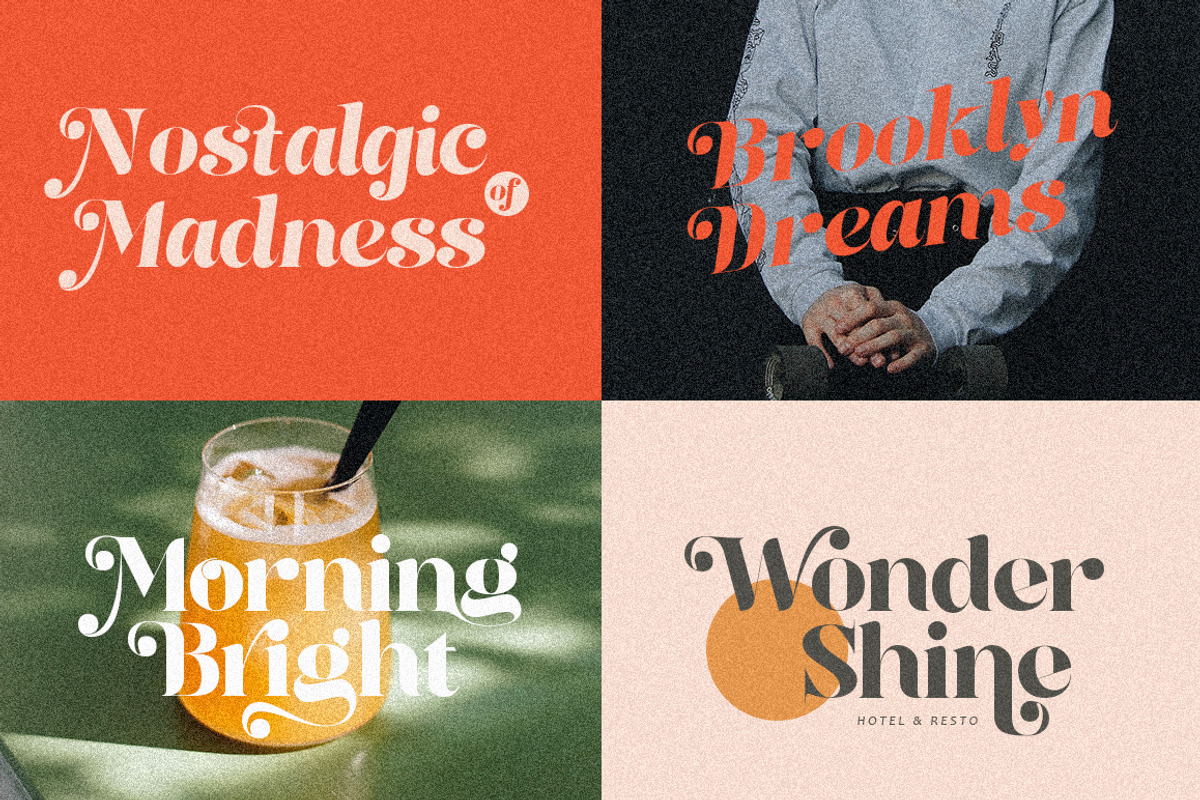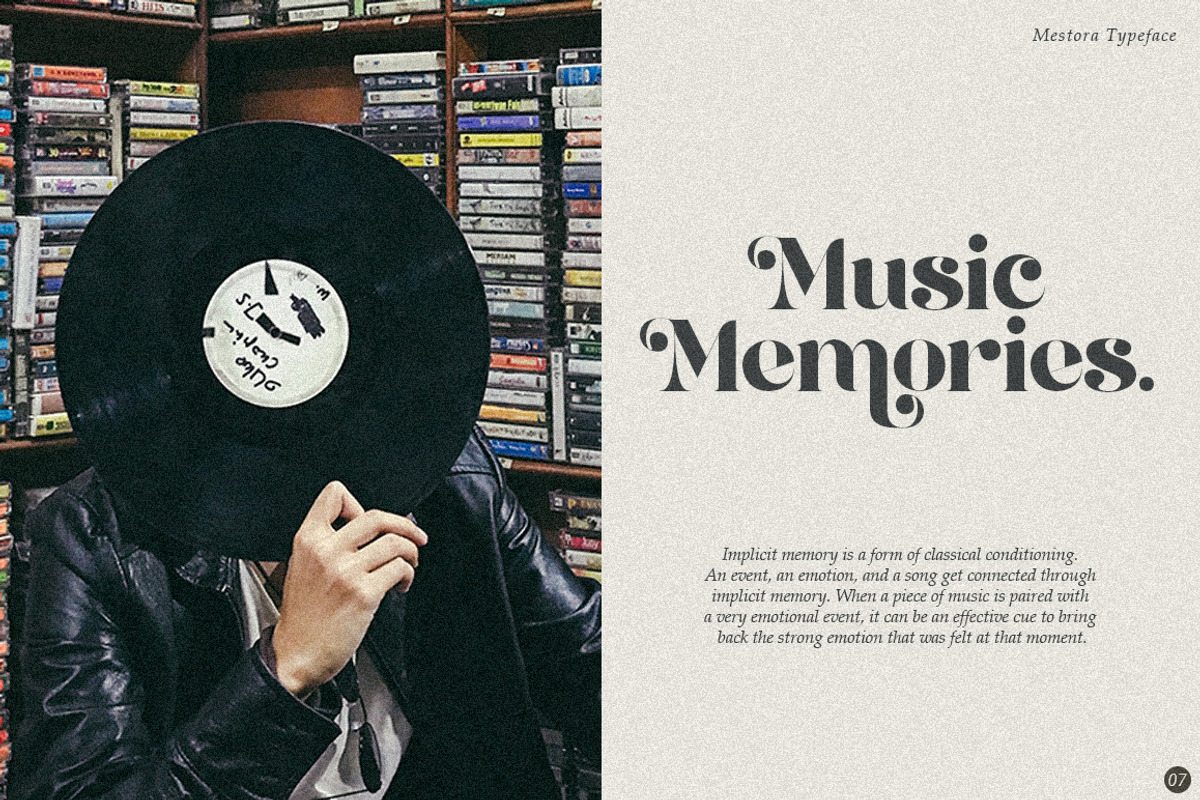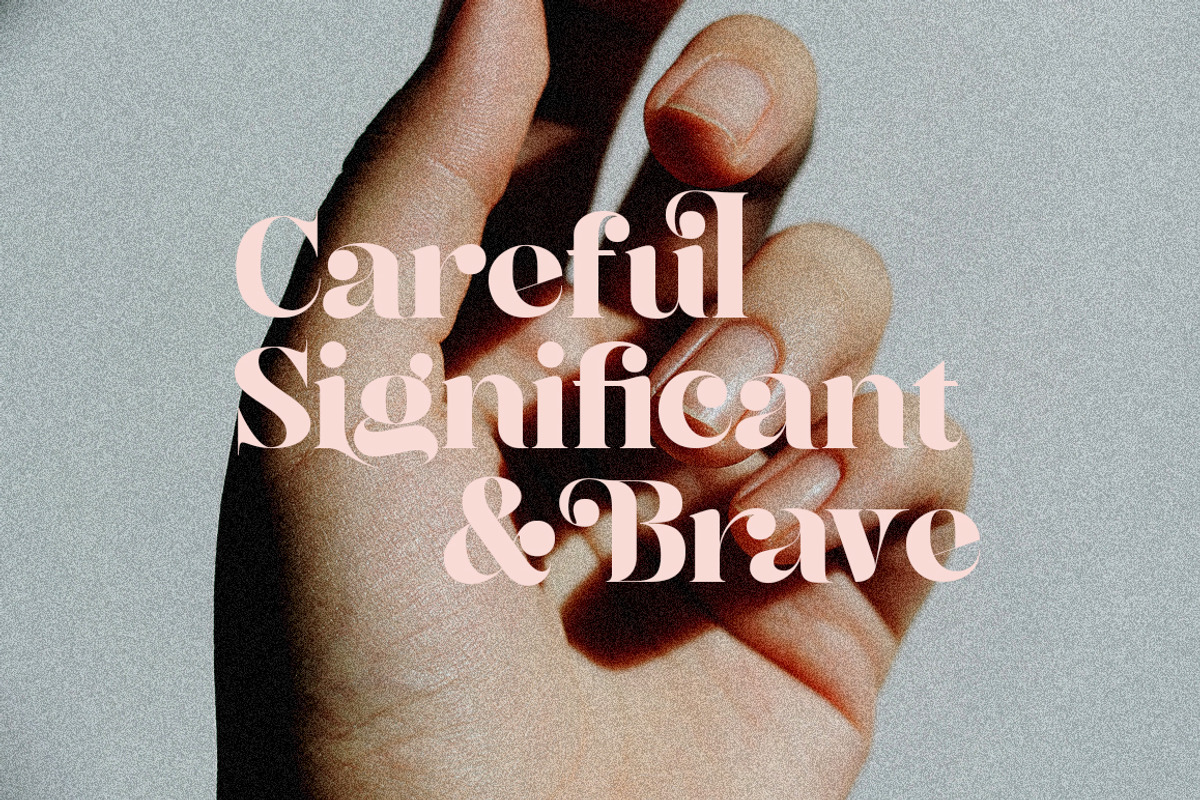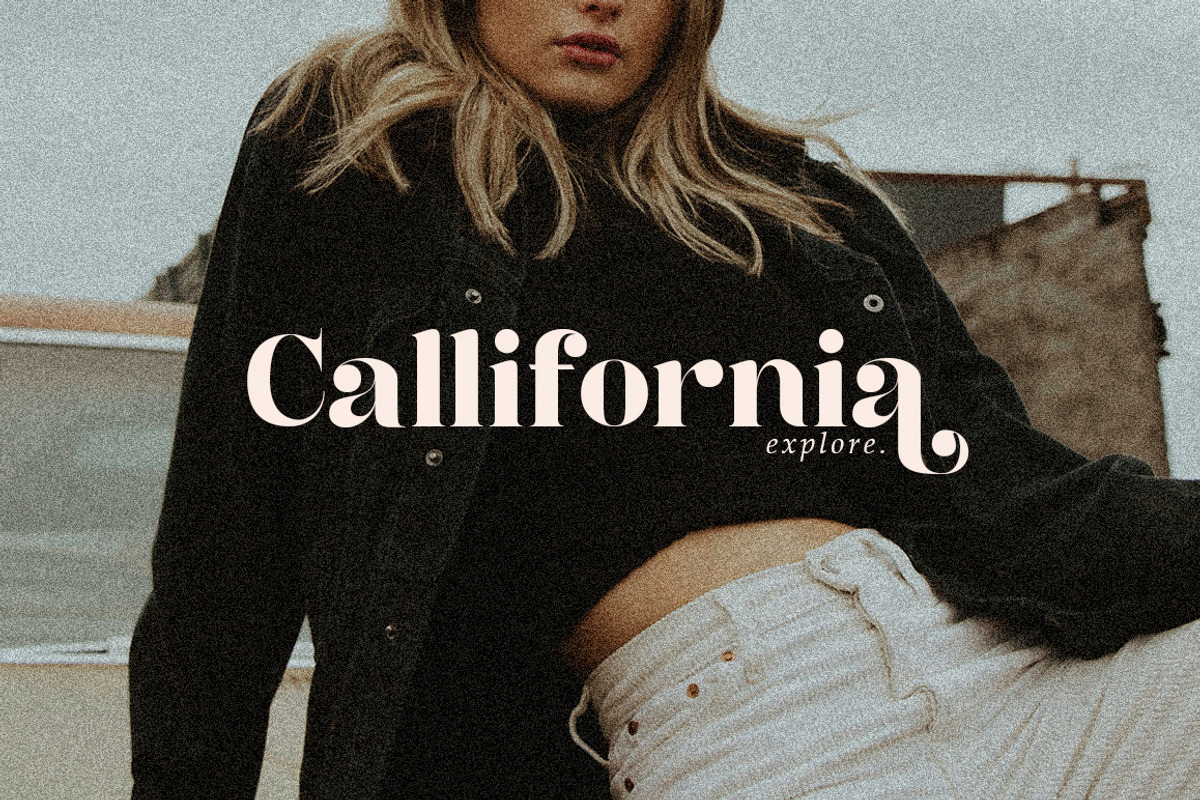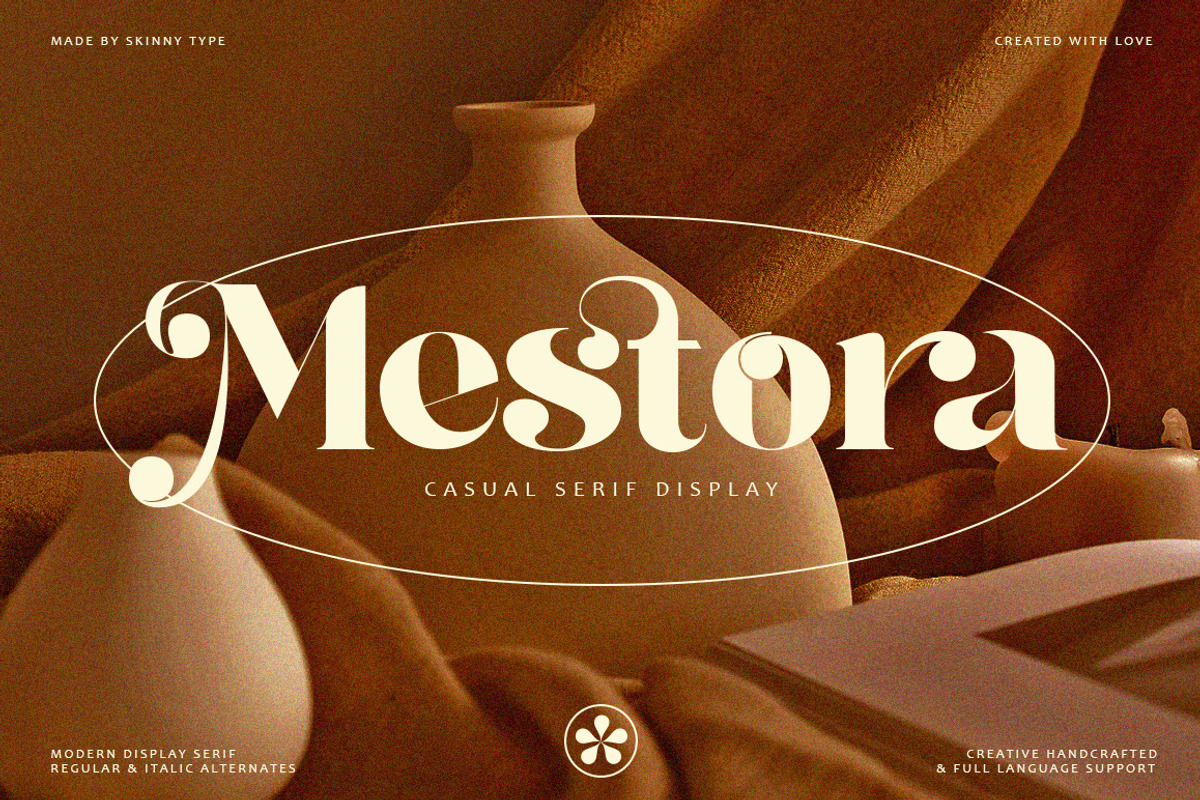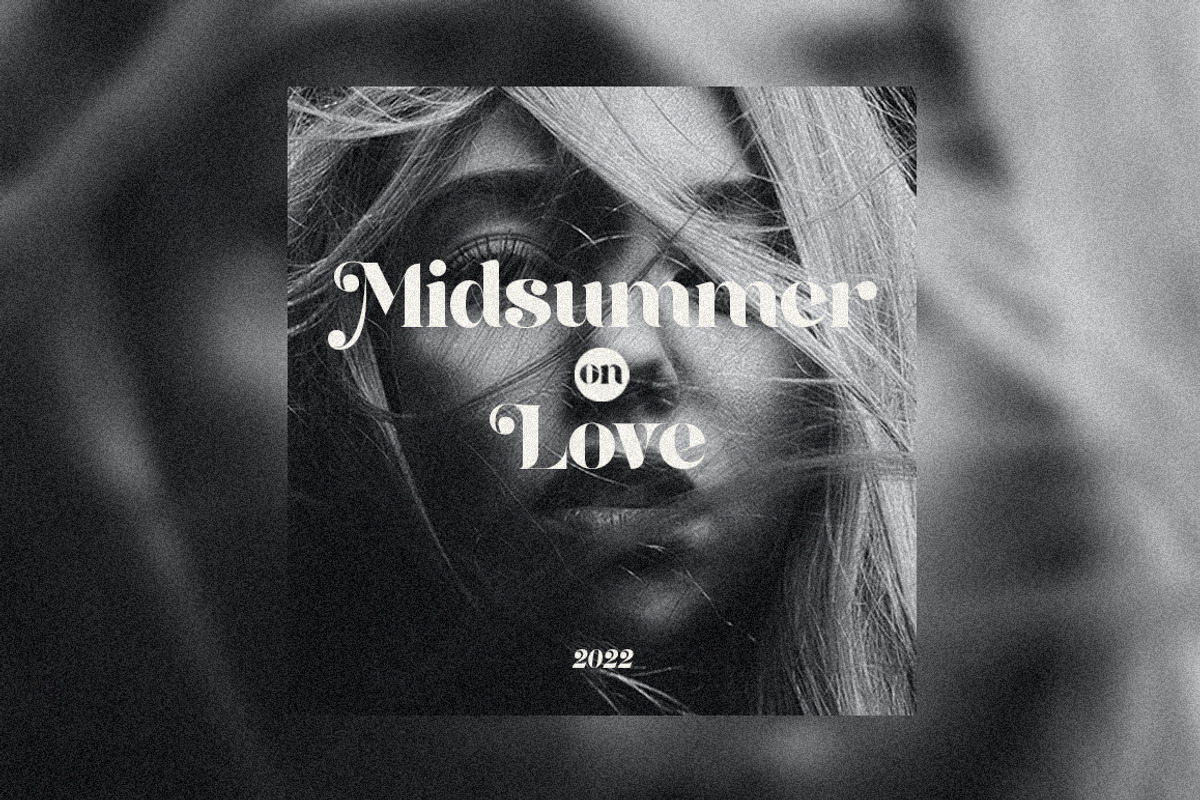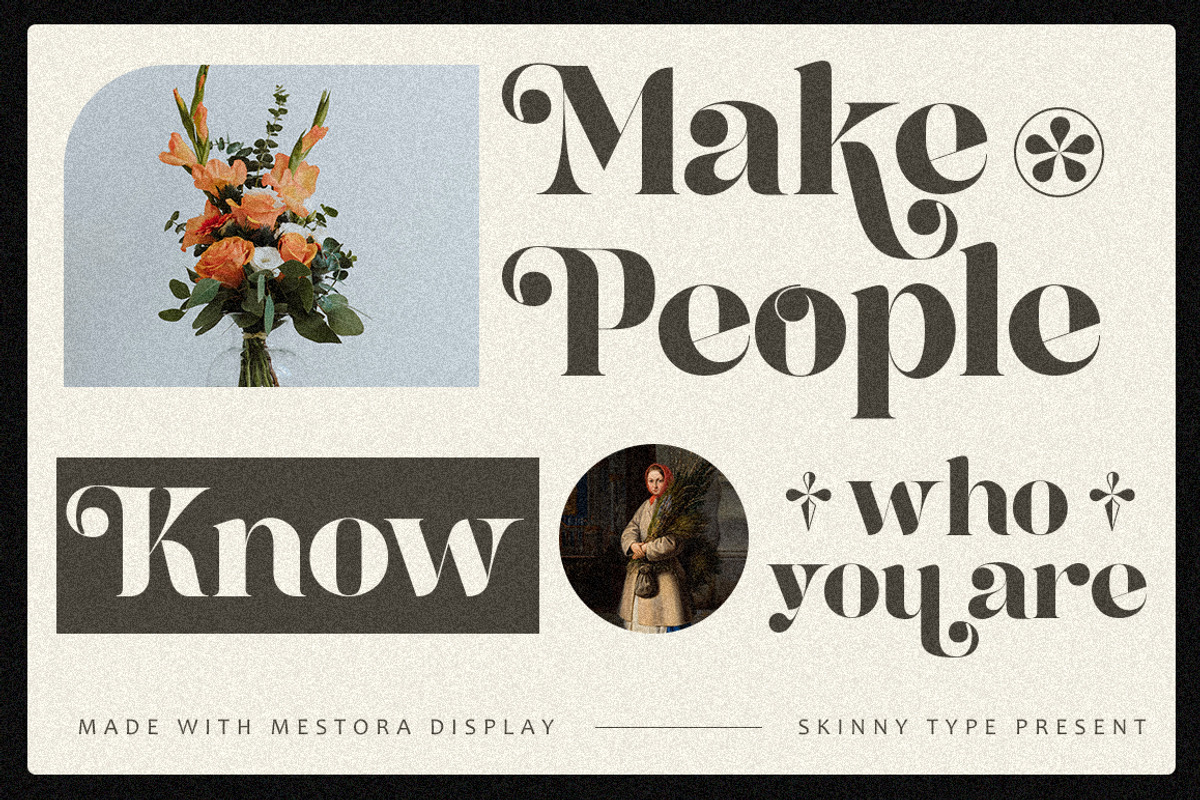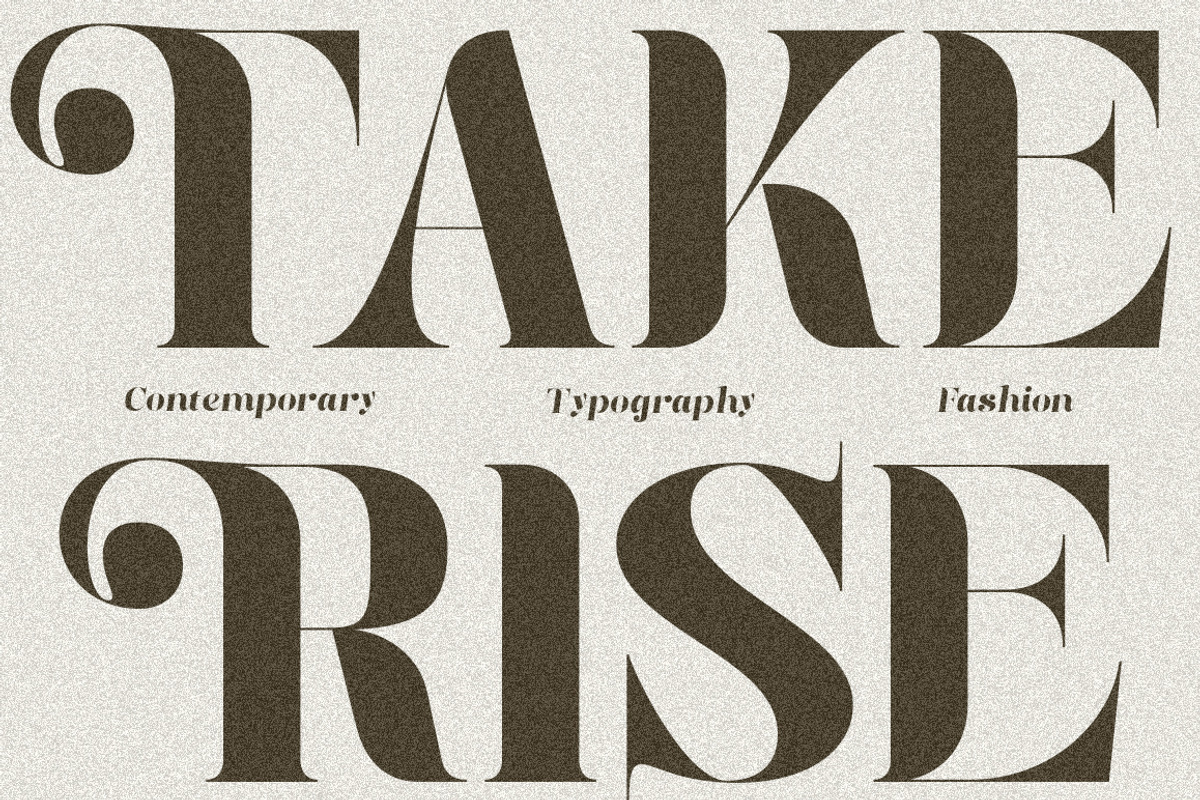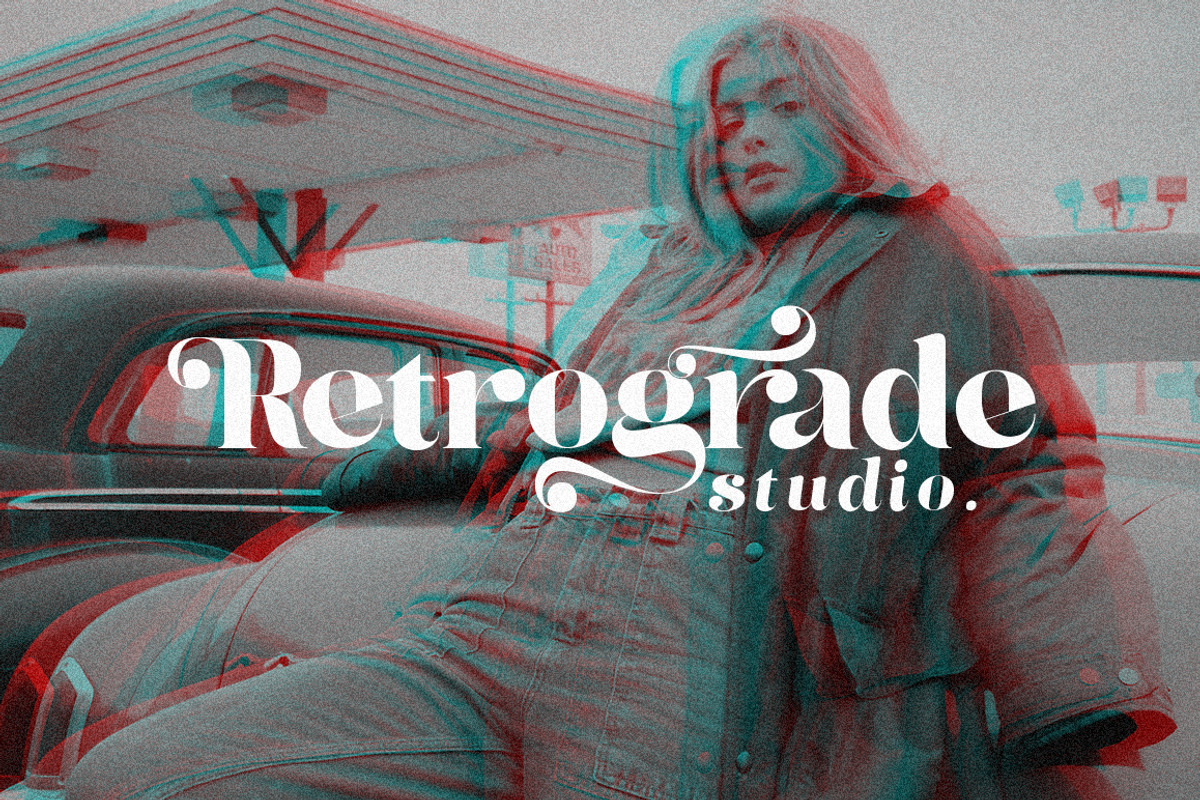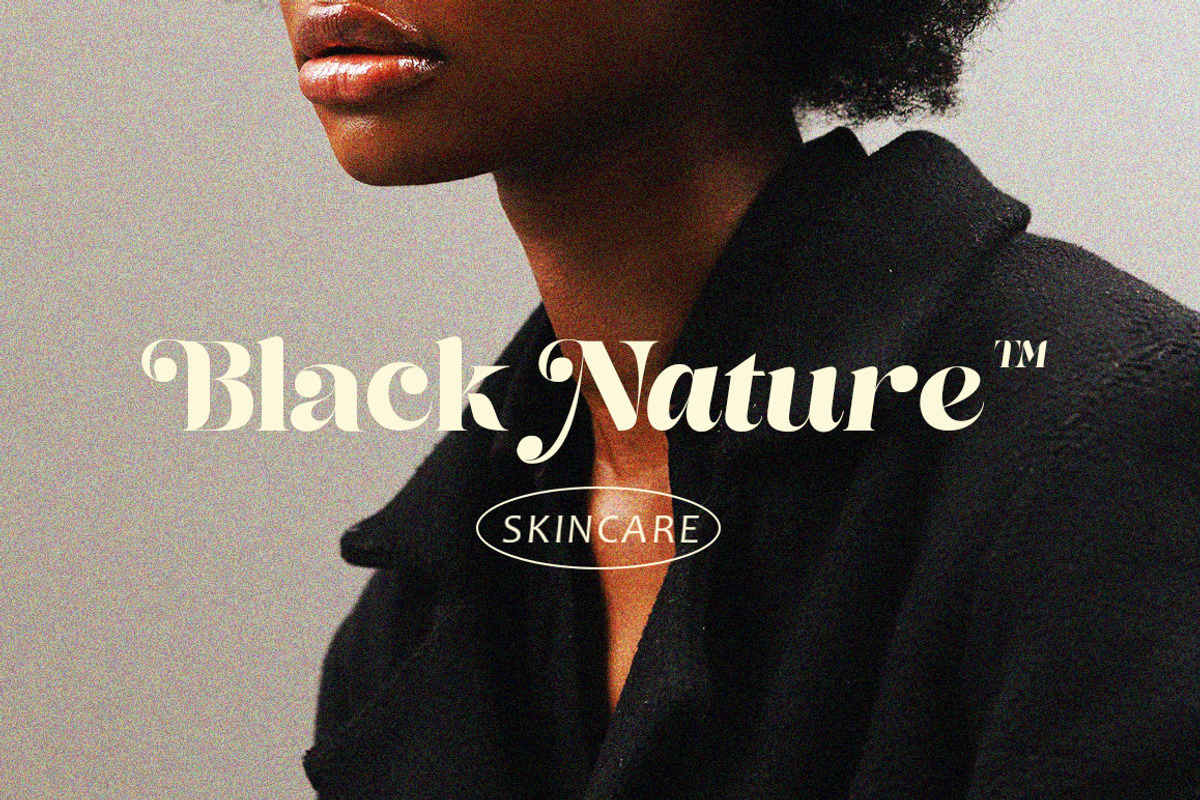
Mestora - Casual Serif Display Font
MESTORA is a classic and elegant retro serif with a modern twist. With its decent readability, Mestora is perfect for both display and header text. Inspired by all the retro aesthetics that resurfaced, Mestora is perfect for creating nostalgic yet clean and elegant designs like logos, packaging, editorials, and more.
MESTORA FEATURES: european language Alternative Uppercase & Lowercase Ligature